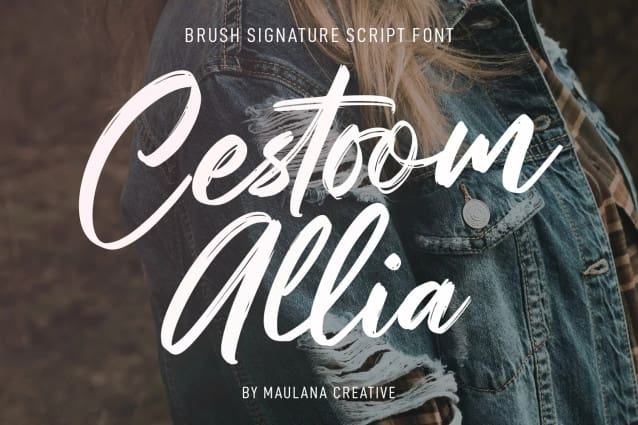
Cestoom Allia Font
Cestoom Allia Font is a modern casual brush script font. With bold brush stroke, fun character with a bit of ligatures. To give you an extra creative work. CestoomAllia font support multilingual more than 100+ language. This font is good for logo design, Social media, Movie Titles, Books Titles, a short text even a long text letter and good for your secondary text font with sans or serif. Make a stunning work with Cestoom Allia font.